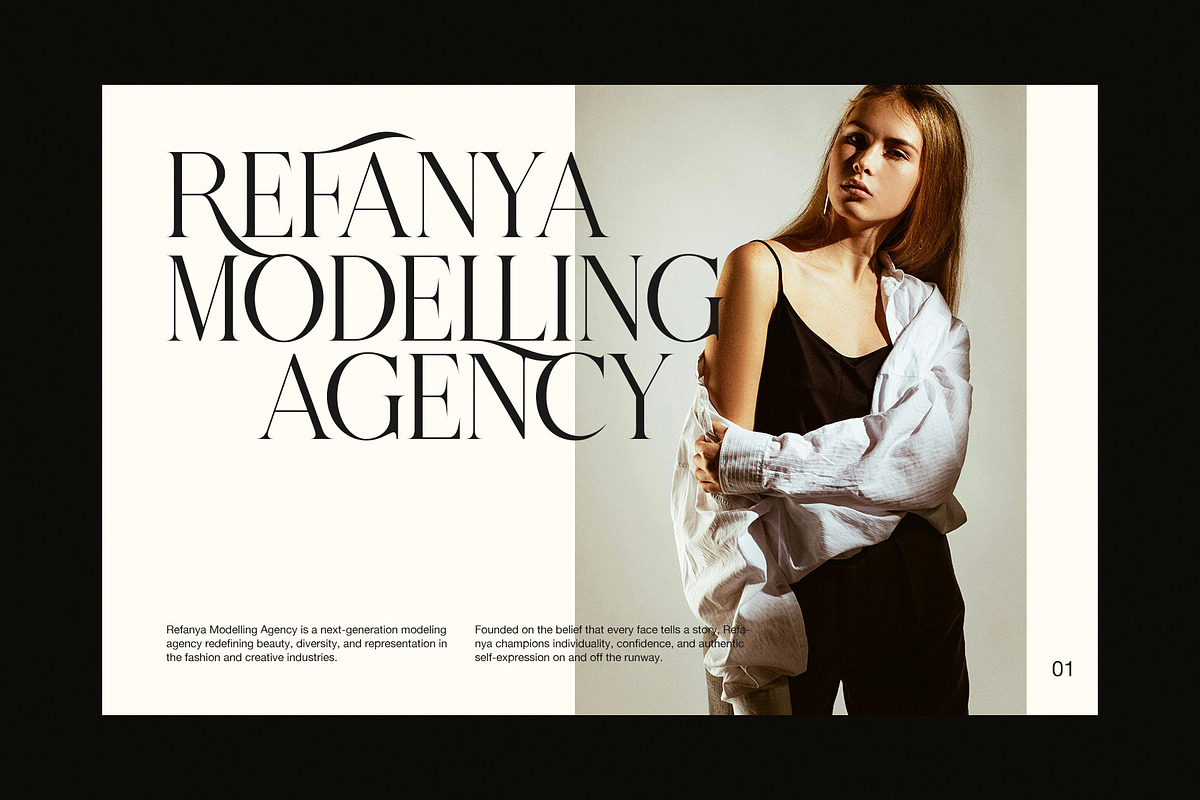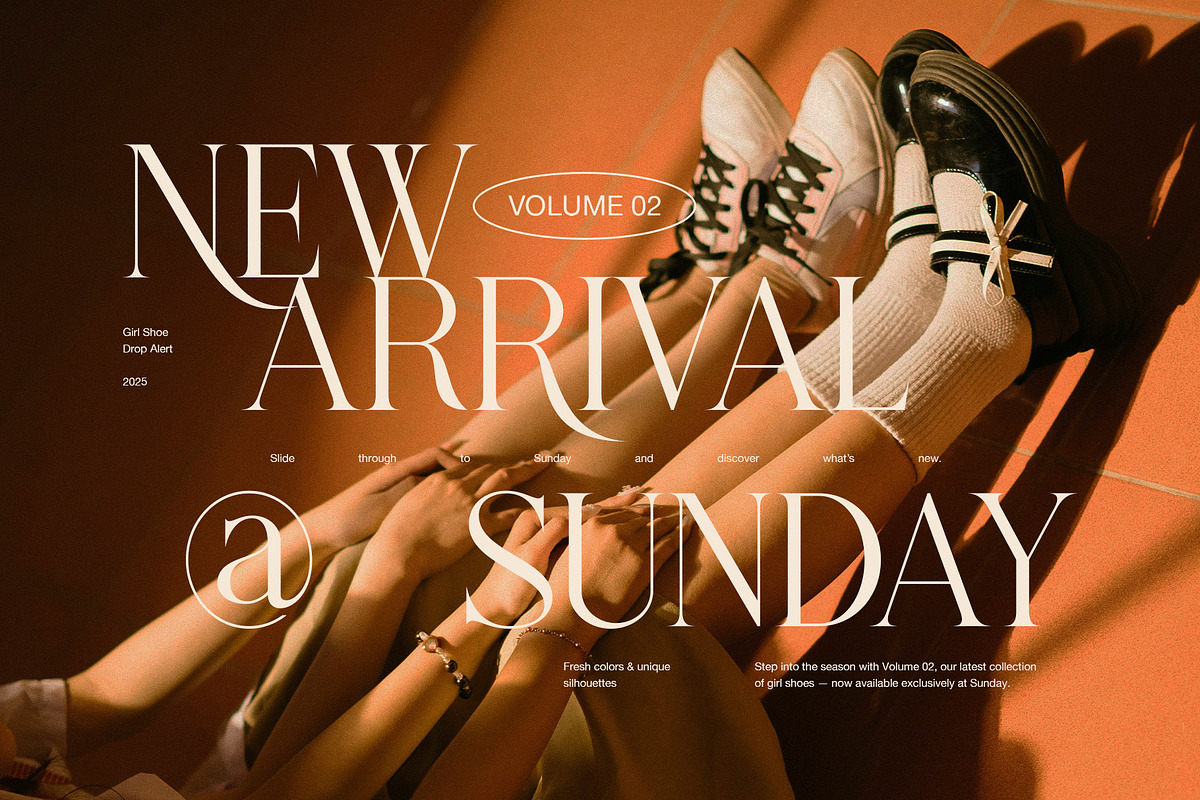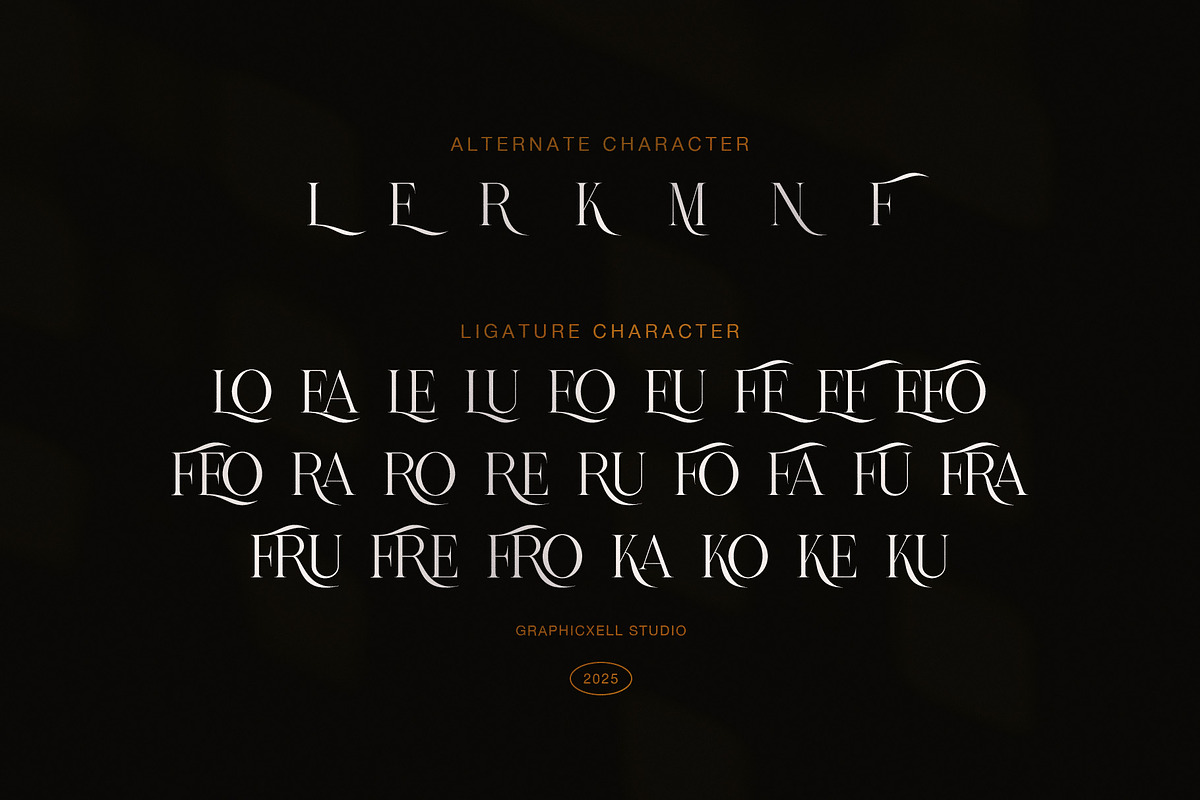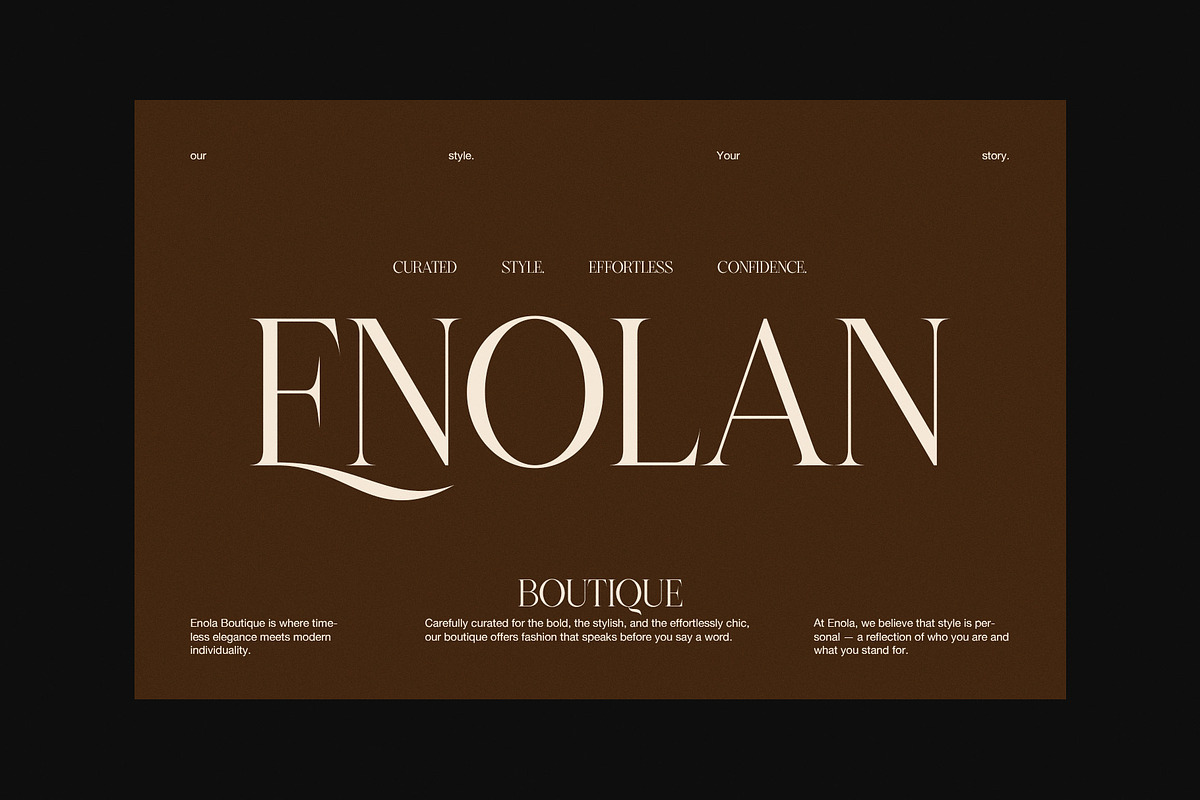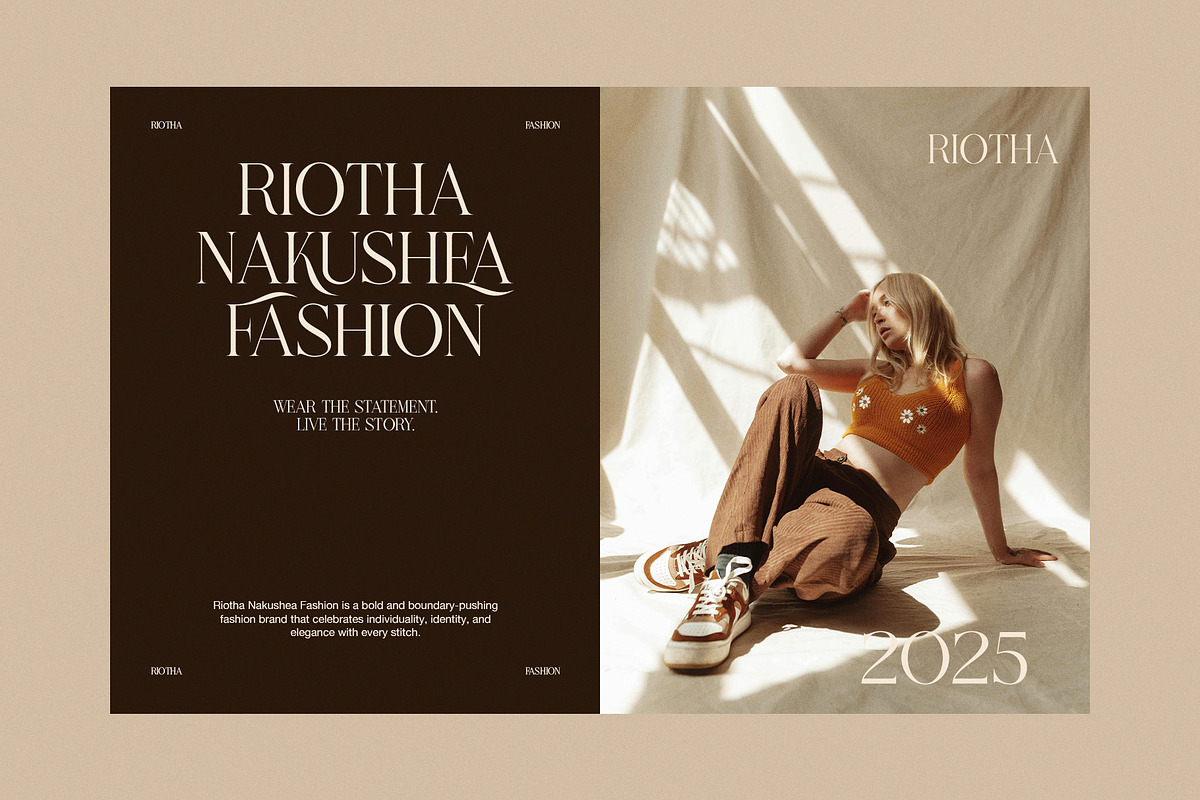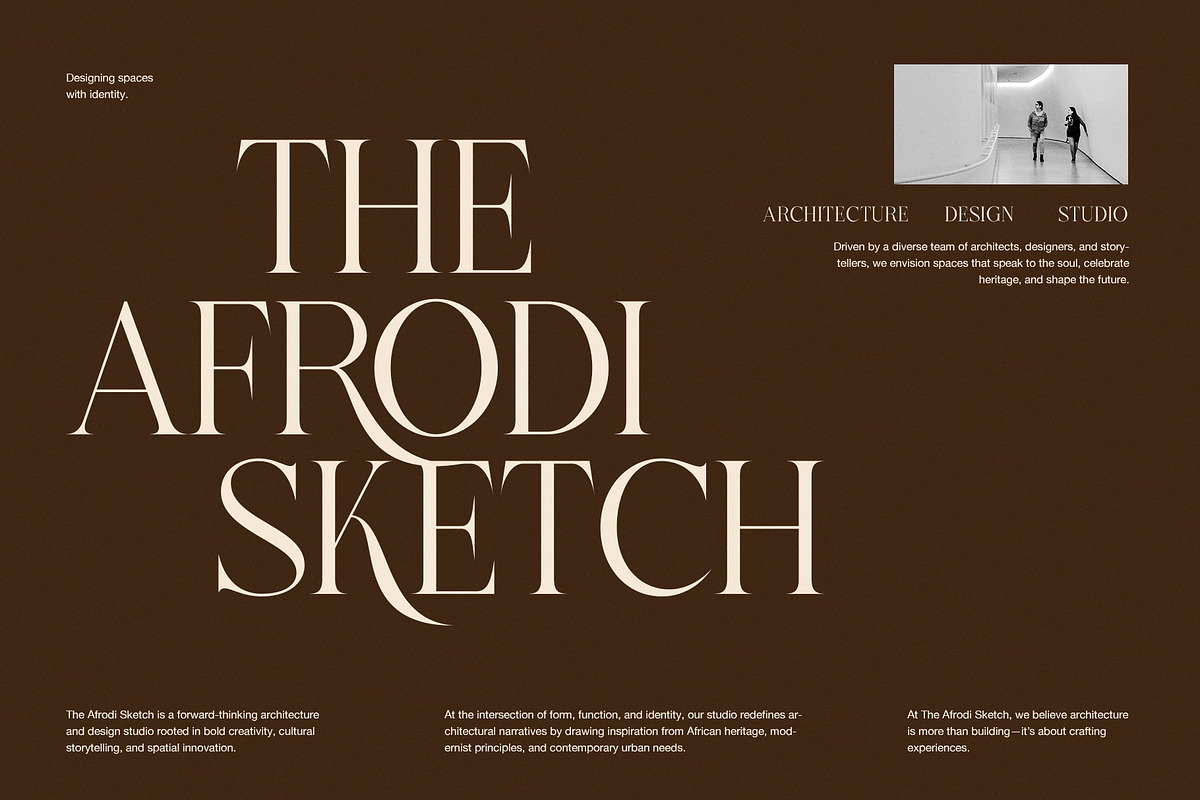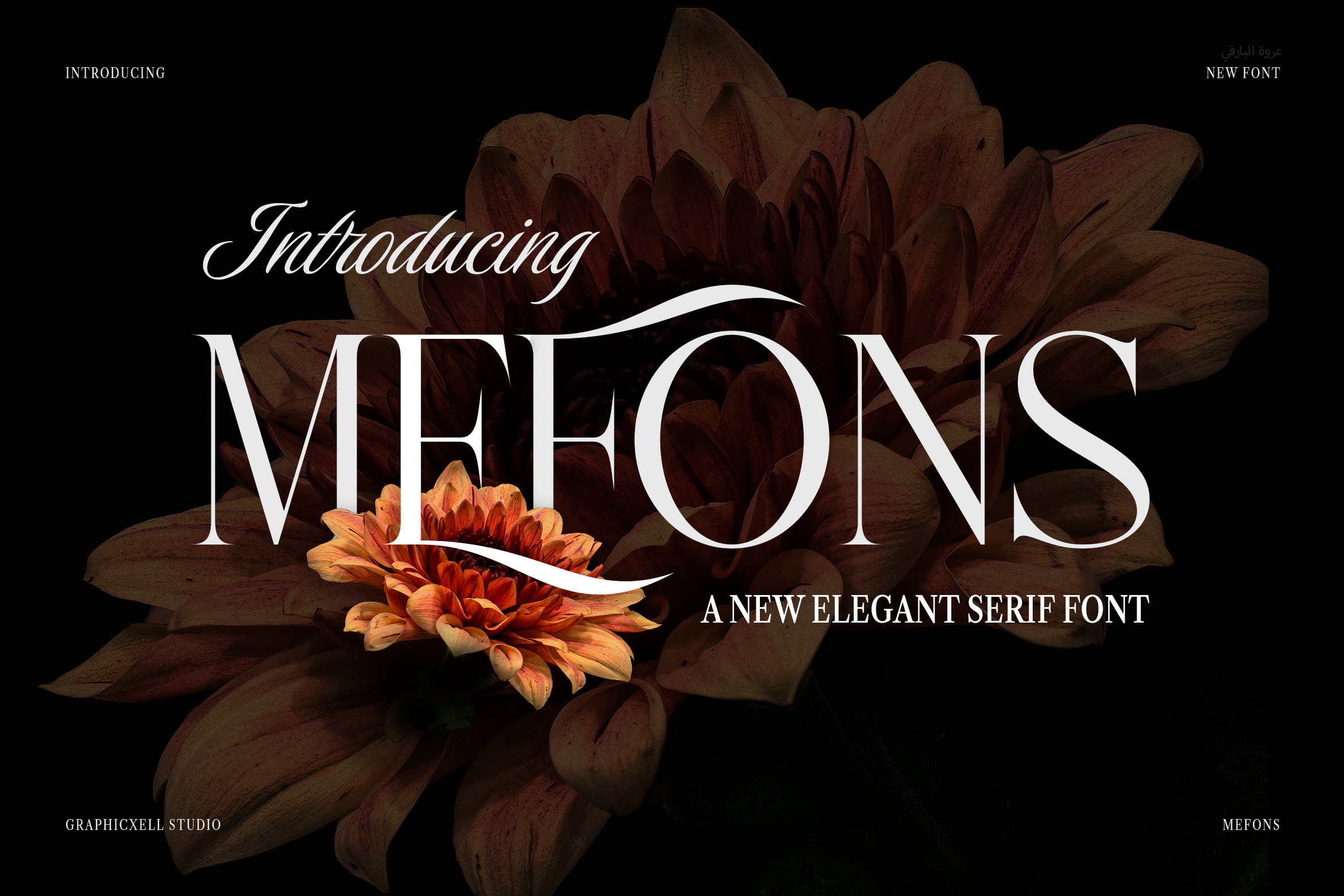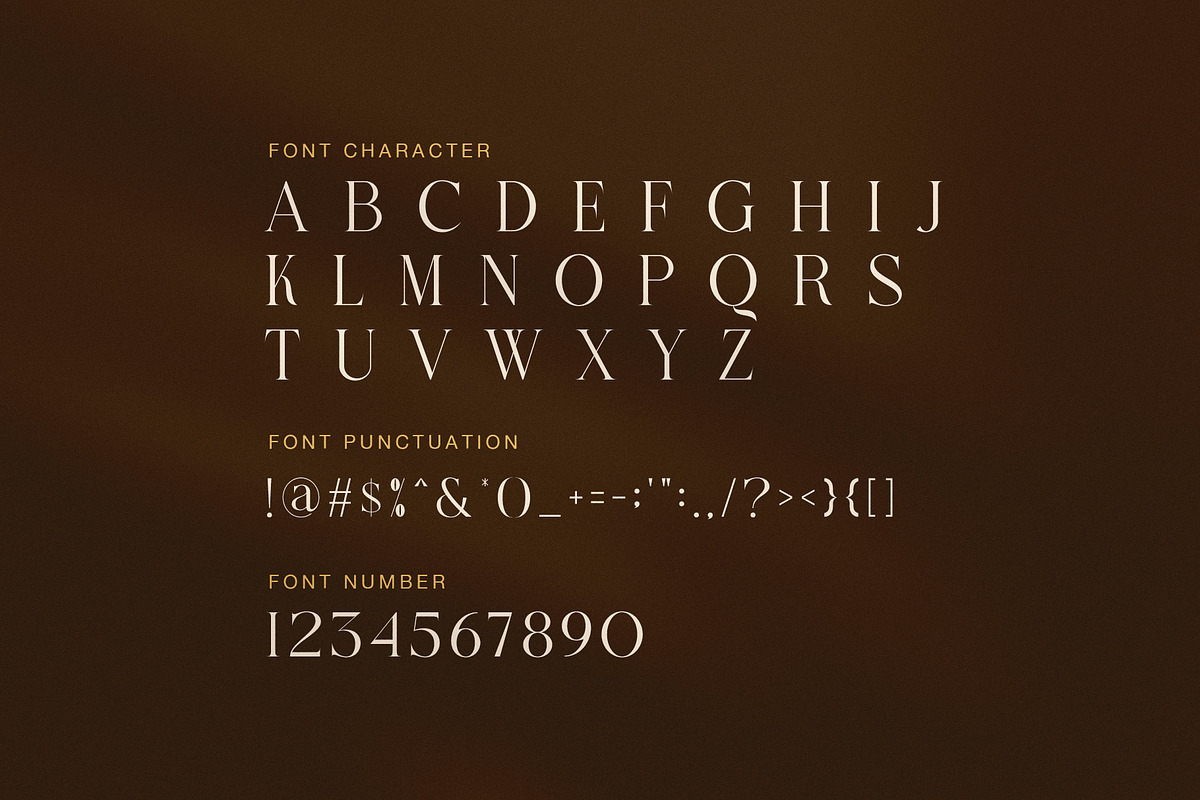
Mefons Elegant Serif Font
Mefons Elegant Serif Font is a luxurious and refined typeface designed to capture attention through graceful motion and timeless detail. With its sweeping ligatures, soft curves, and striking contrast, this font brings sophistication to every project. Because of its stylish form, Mefons is ideal for designers who want to blend modern beauty with classic charm.
This elegant serif font was created to balance readability and artistry. Therefore, it fits perfectly in branding, editorial layouts, packaging, fashion lookbooks, and invitation designs. Each letter features smooth transitions between thin and thick strokes, giving your text an elegant flow that feels both professional and expressive.
Key Features of Mefons Font:
Elegant and modern serif design
Beautiful alternate characters and unique ligatures
Ideal for fashion, branding, and luxury design projects
Perfect for packaging, invitations, and editorial layouts
Includes uppercase letters, numbers, and punctuation
Mefons stands out because of its high contrast and fluid motion. Moreover, its refined details make it suitable for projects that require a luxurious, yet contemporary touch. As a result, this font easily elevates titles, logos, and headlines with a premium and artistic tone.
In addition, Mefons offers excellent versatility. You can use it alone for elegant statements or pair it with minimalist sans-serif fonts for balance. Its elegant alternates and refined ligatures allow you to customize designs effortlessly while maintaining a consistent aesthetic. Furthermore, Mefons performs beautifully across print and digital media, ensuring clarity and charm in every format.
Choose Mefons Elegant Serif Font to give your design a polished and timeless identity. It adds personality to your brand while enhancing visual harmony and sophistication. With Mefons, every word becomes a statement of style, confidence, and creativity.